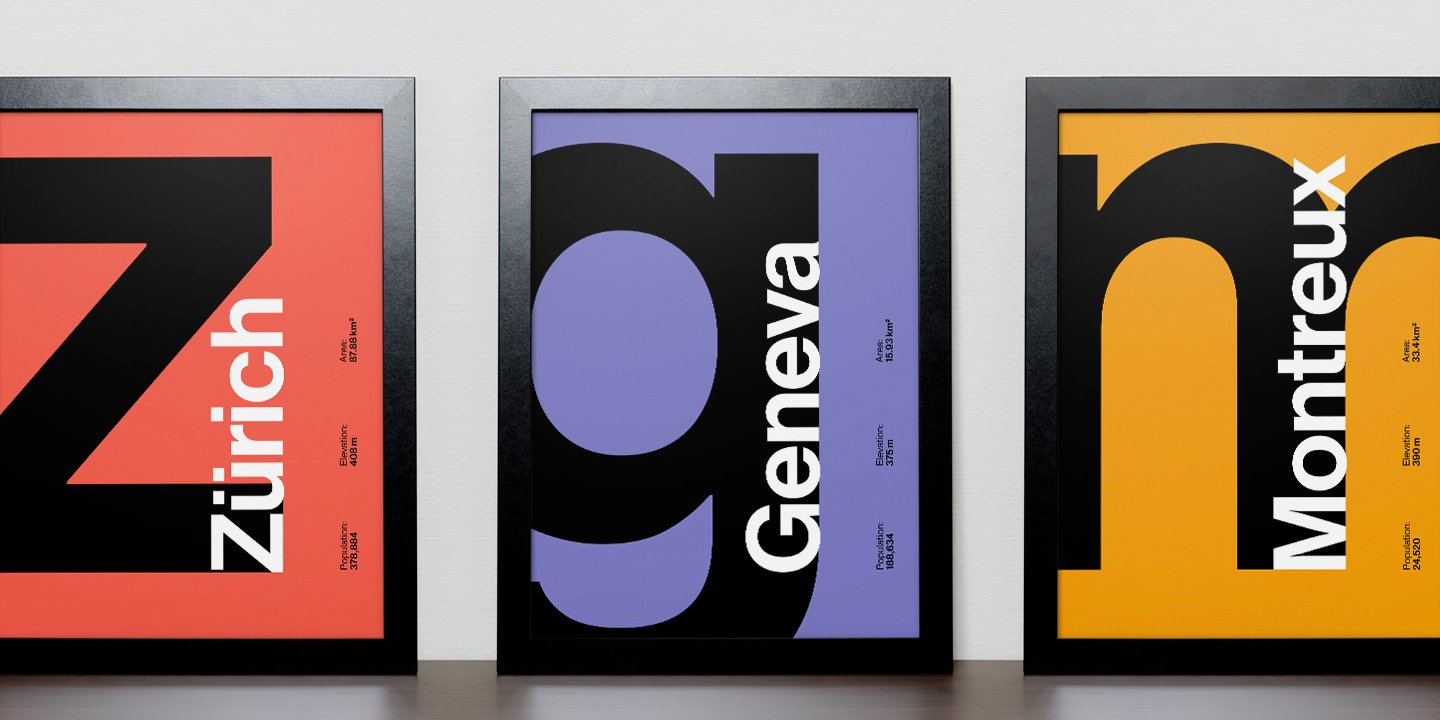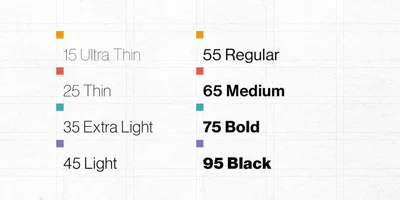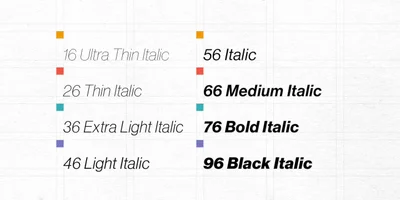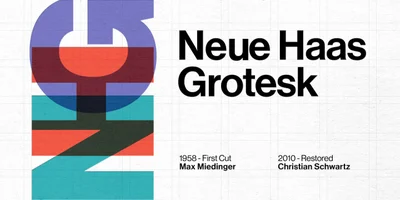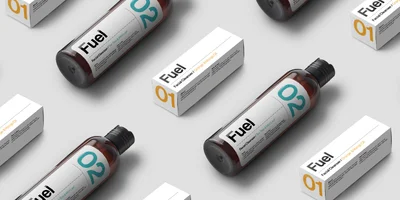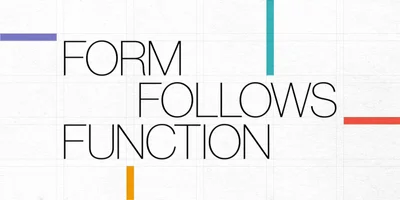
Neue Haas Grotesk vs Replica
Neue Haas Grotesk and Replica are both sans-serif typefaces sharing a minimal foundation. Where Neue Haas Grotesk leans retro, branding, Replica brings geometric. Compare which suits your Corporate project.
Where You'll See These Fonts
Neue Haas Grotesk
- Luxury and fashion brand identities
- Corporate annual reports and financial documents
- Museum and gallery exhibition materials
- Transportation and wayfinding signage
- Government and institutional communications
Replica
- Architecture firm branding
- Contemporary art museums
- Cultural institution publications
- Swiss design studios
- Academic design programs
Recommended: Neue Haas Grotesk
- retro, branding design character
- Suited for Ui and Advertising
- From Linotype
Consider: Replica
- geometric design character
- Suited for Cultural
- From Lineto